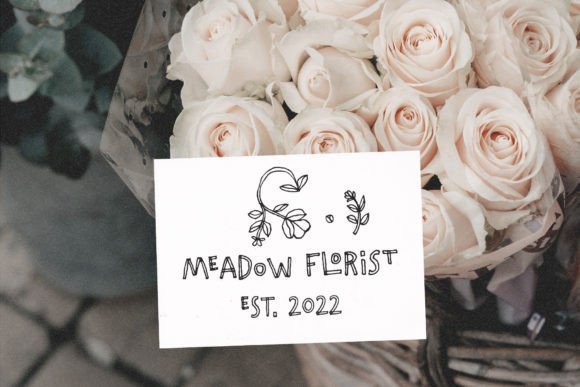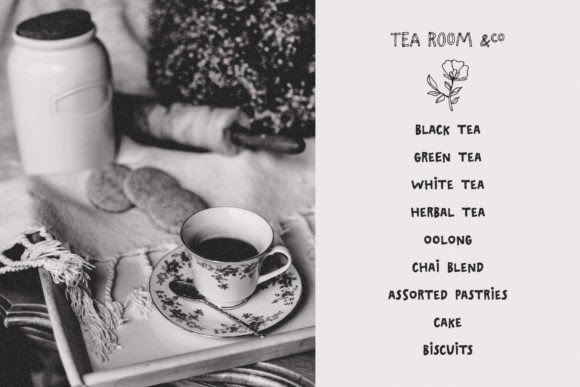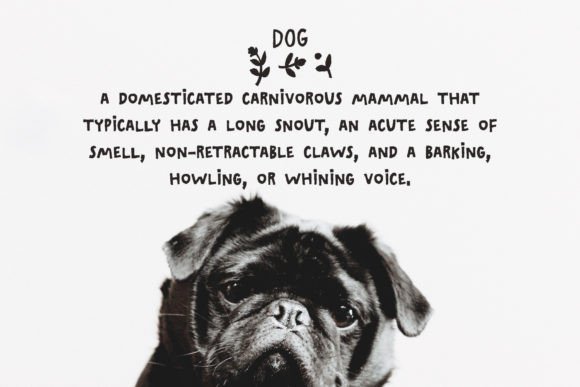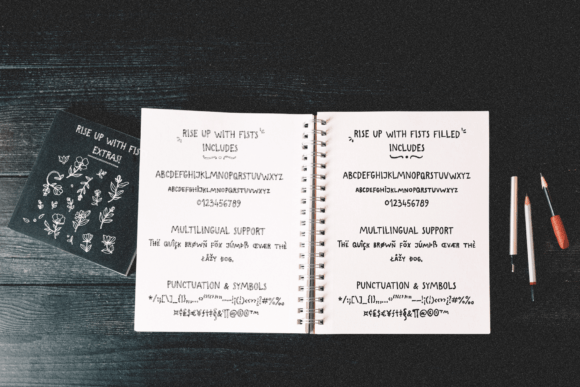
Rise Up With Fists Font Download – Bold Handwritten Script
The Rise Up With Fists Font download is a bold handwritten typeface that brings strength, energy, and character to your creative projects. Inspired by protest posters, this font delivers an expressive style with lots of variations and extra drawings, making it ideal for impactful design work. Whether you’re creating social media graphics, magazine layouts, or posters, Rise Up With Fists makes your message impossible to ignore.
A Bold Handwritten Style with Energy
The Rise Up With Fists Font download captures the essence of bold handwriting with raw authenticity. Each stroke feels powerful and dynamic, giving your designs an energetic, handcrafted look. Its expressive style ensures your work stands out while staying clear and legible.
Perfect for Posters and Social Media
The Rise Up With Fists Font download is especially effective in poster design and social media graphics. Its protest-inspired aesthetic brings urgency and excitement, making it perfect for bold quotes, calls to action, and event promotions. This is the font you need when you want your message to be seen and remembered.
Great for Logos and Branding
Strong visual identity is essential in branding, and the Rise Up With Fists Font download delivers personality and attitude. Its bold strokes and handcrafted details make it suitable for edgy logos, product labels, and creative packaging. It communicates strength and originality, ideal for modern brands.
Versatile Across Creative Projects
Beyond posters and logos, the Rise Up With Fists Font download adapts well to website headers, magazine layouts, flyers, and t-shirt designs. Its bold style works across digital and print formats, giving designers the flexibility to use it in multiple contexts.
Readability with Bold Character
Some bold handwritten fonts can be difficult to read, but the Rise Up With Fists Font download keeps text clear while maintaining its expressive flair. This balance makes it effective for both large-scale titles and medium-sized text, ensuring your message is impactful and legible.
Why Choose Rise Up With Fists Font?
Among bold handwritten fonts, the Rise Up With FistsFont download stands out because of its protest-inspired aesthetic, expressive strokes, and wide usability. It combines energy, originality, and clarity, making it suitable for any project that demands attention.
Add Impact to Your Designs
Typography shapes emotions, and the Rise Up With FistsFont download helps you add urgency, strength, and creativity. Whether for posters, social media posts, or branding, this font ensures your work is bold, memorable, and full of character.